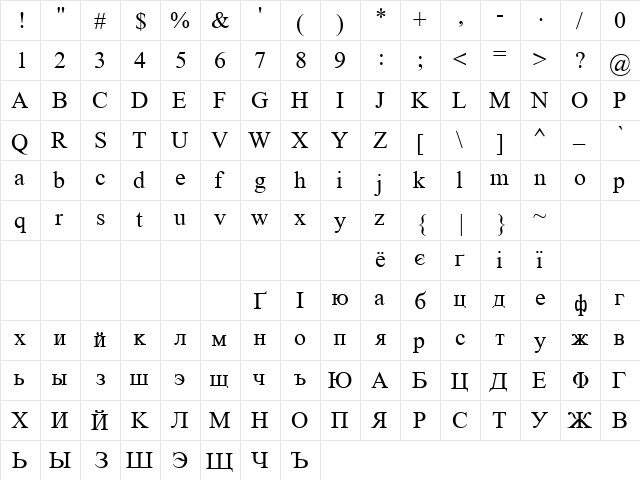
ER Third Roman KOI-8 Normal
Design Context for ER Third Roman KOI-8 Typeface
ER Third Roman KOI-8 takes a measured approach to typography — its balanced proportions and neutral character make it a reliable workhorse for both digital and print work.